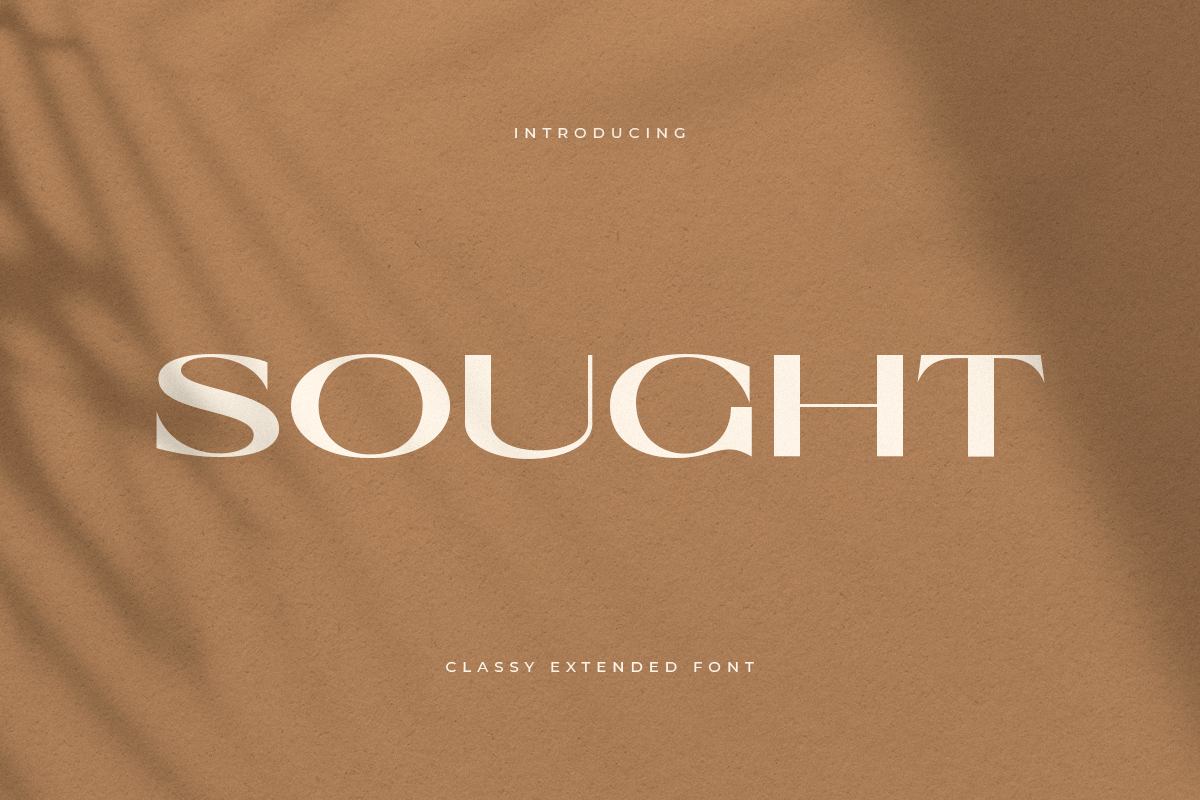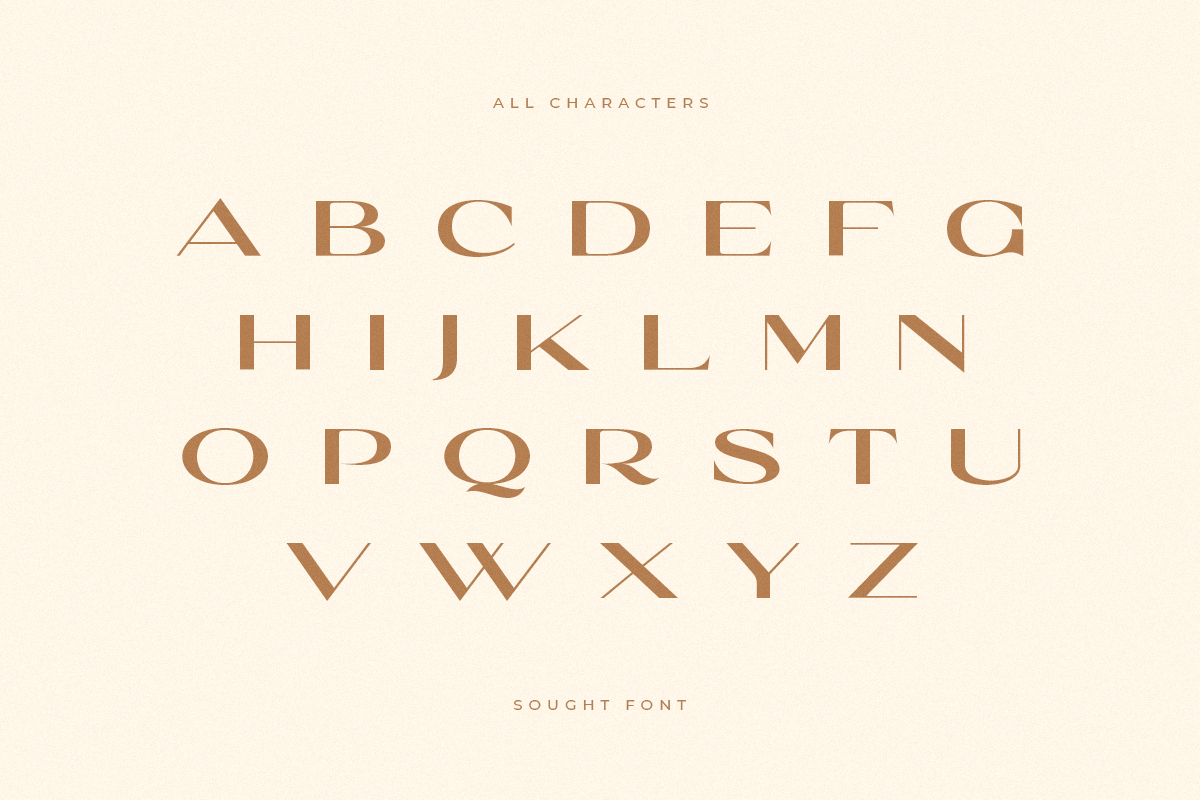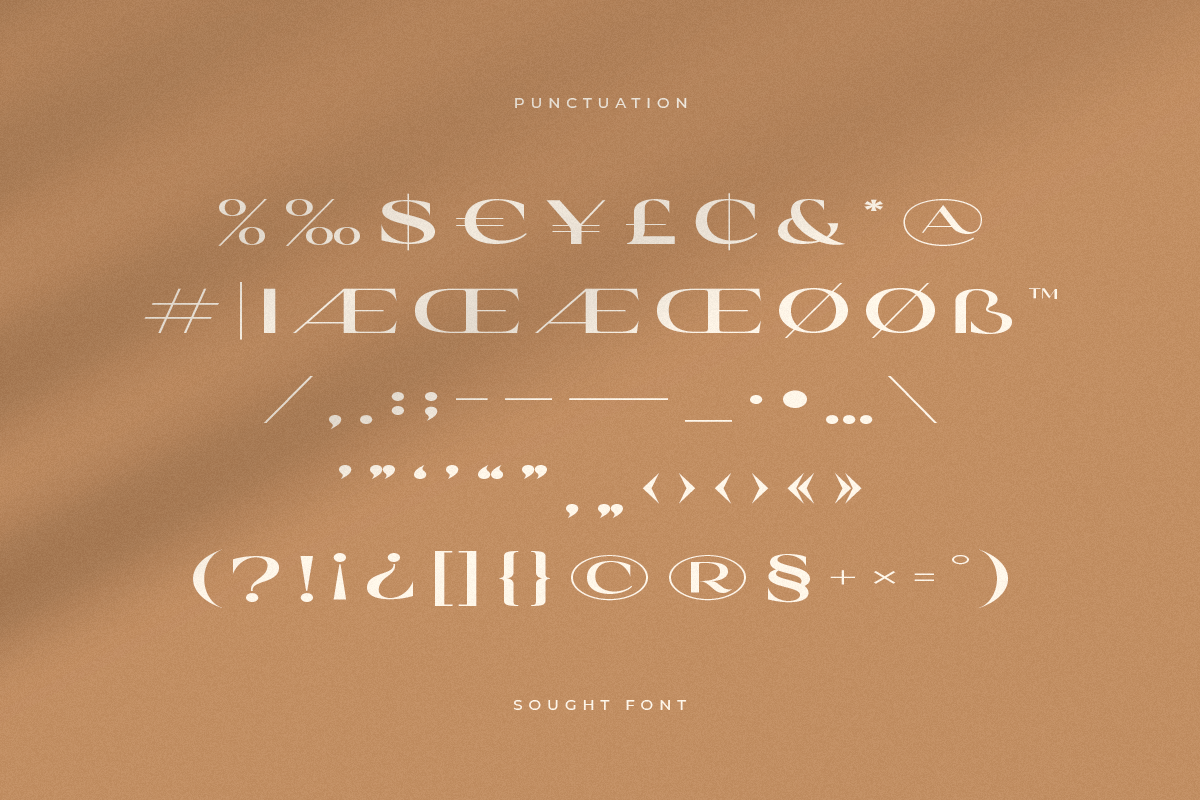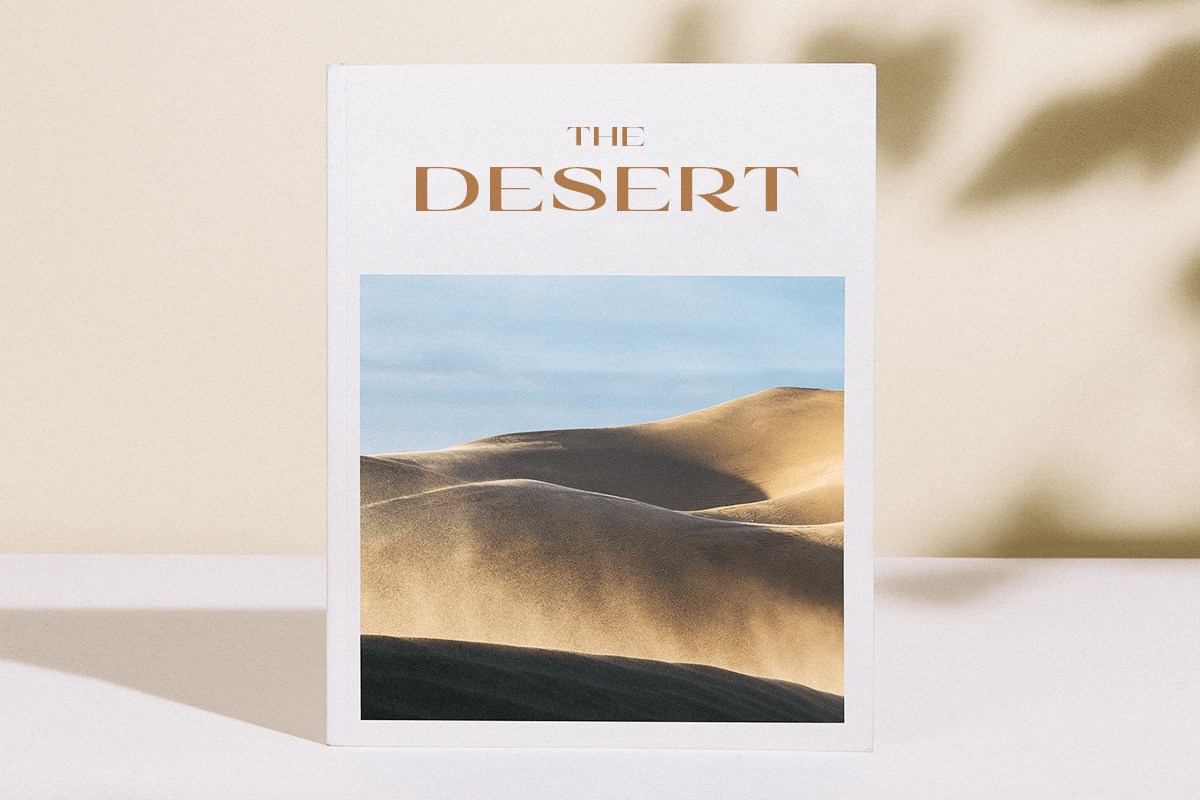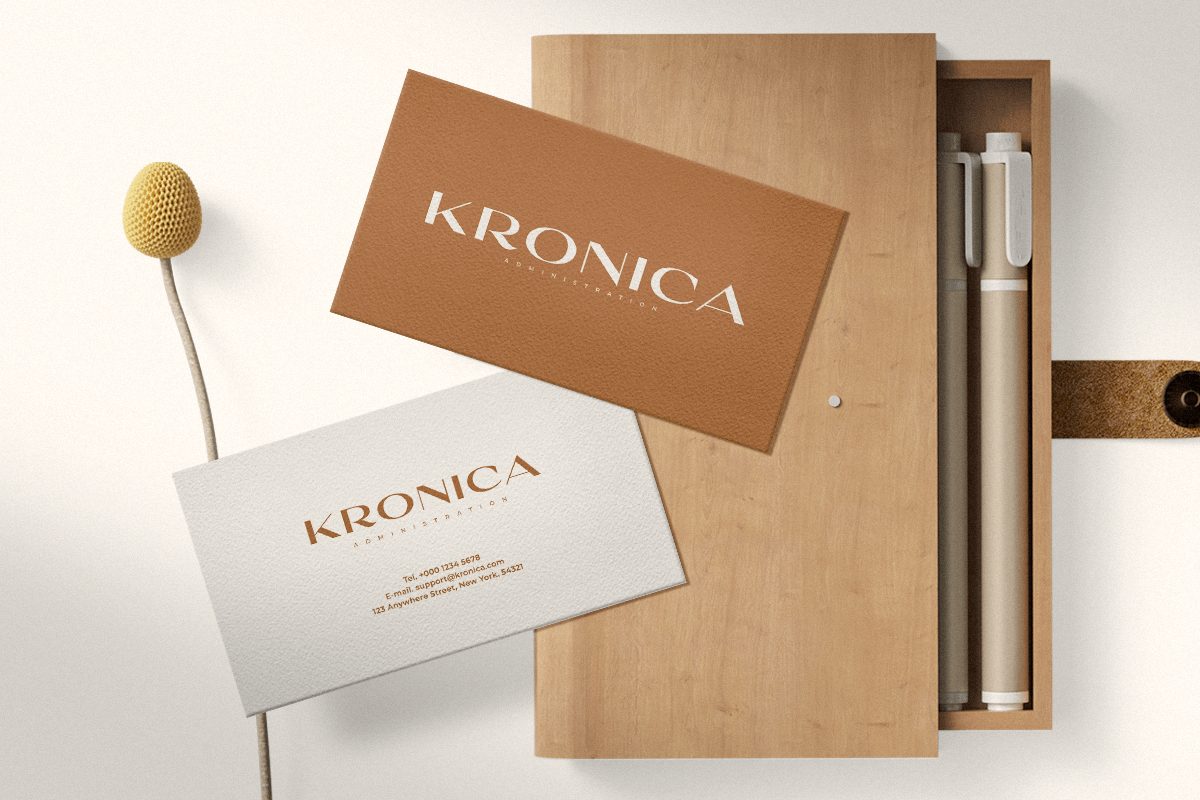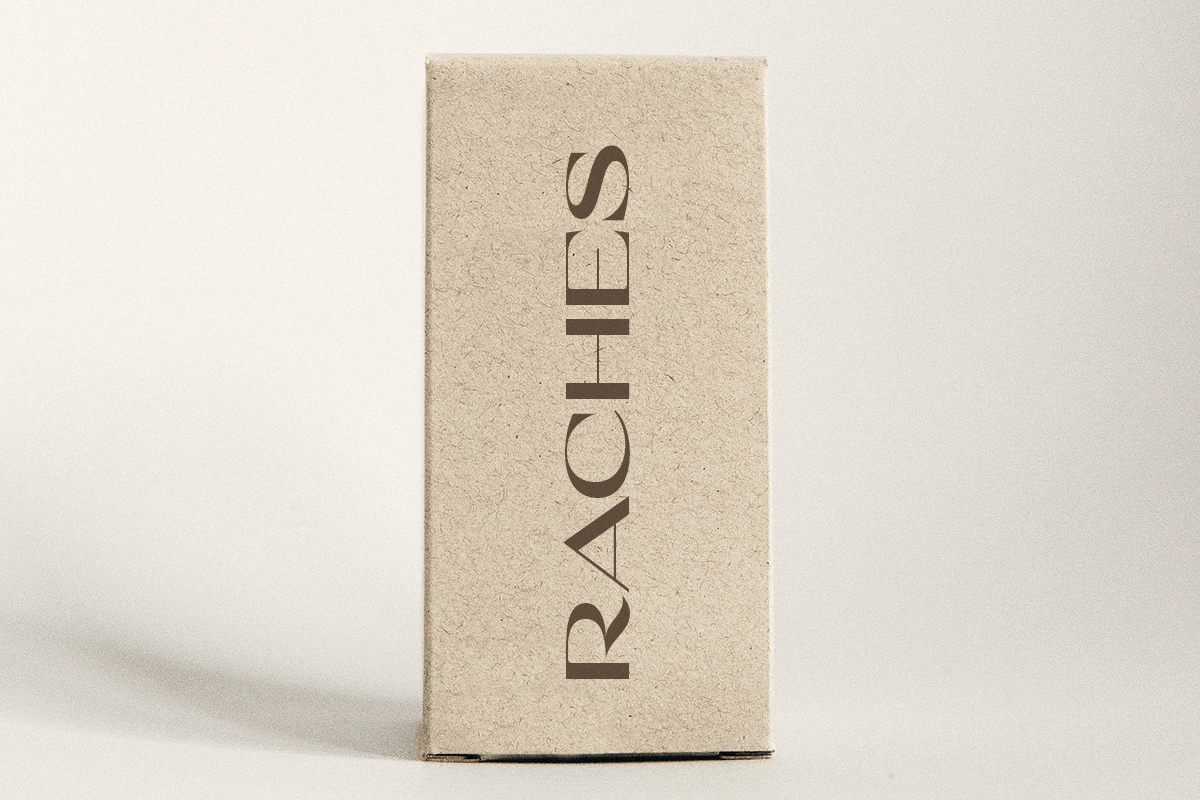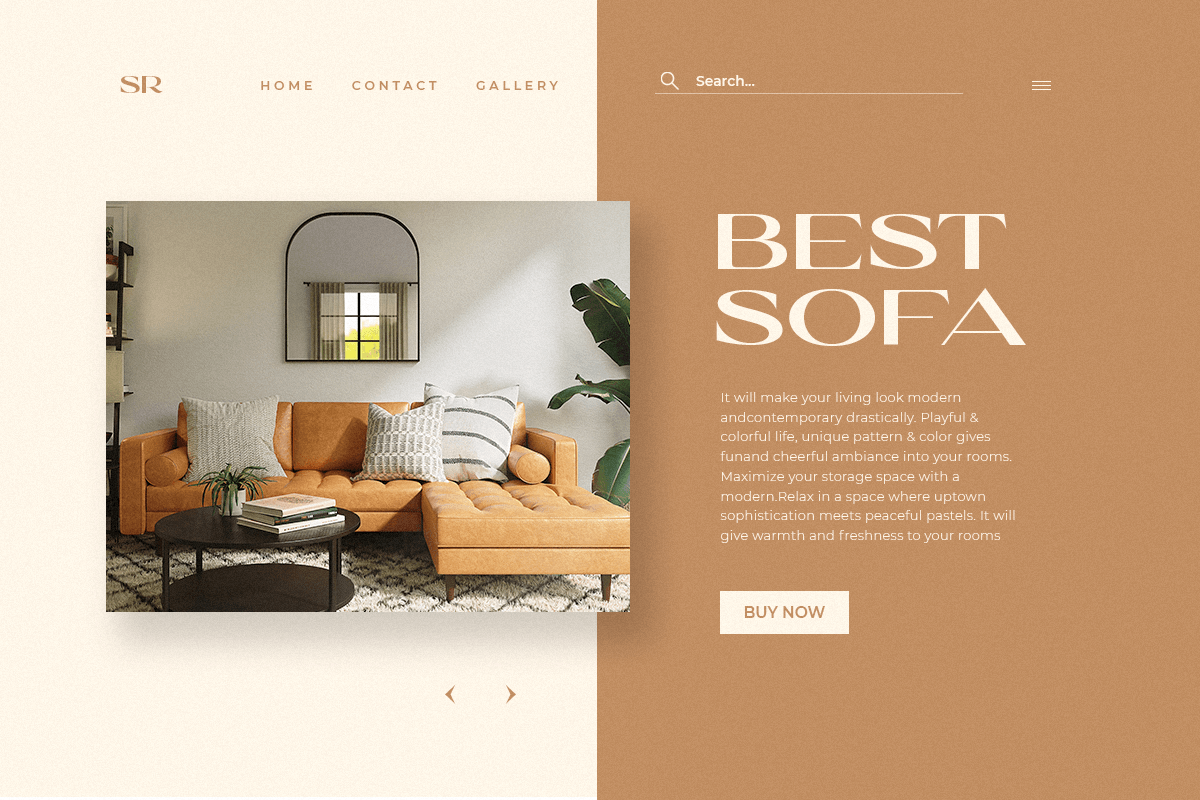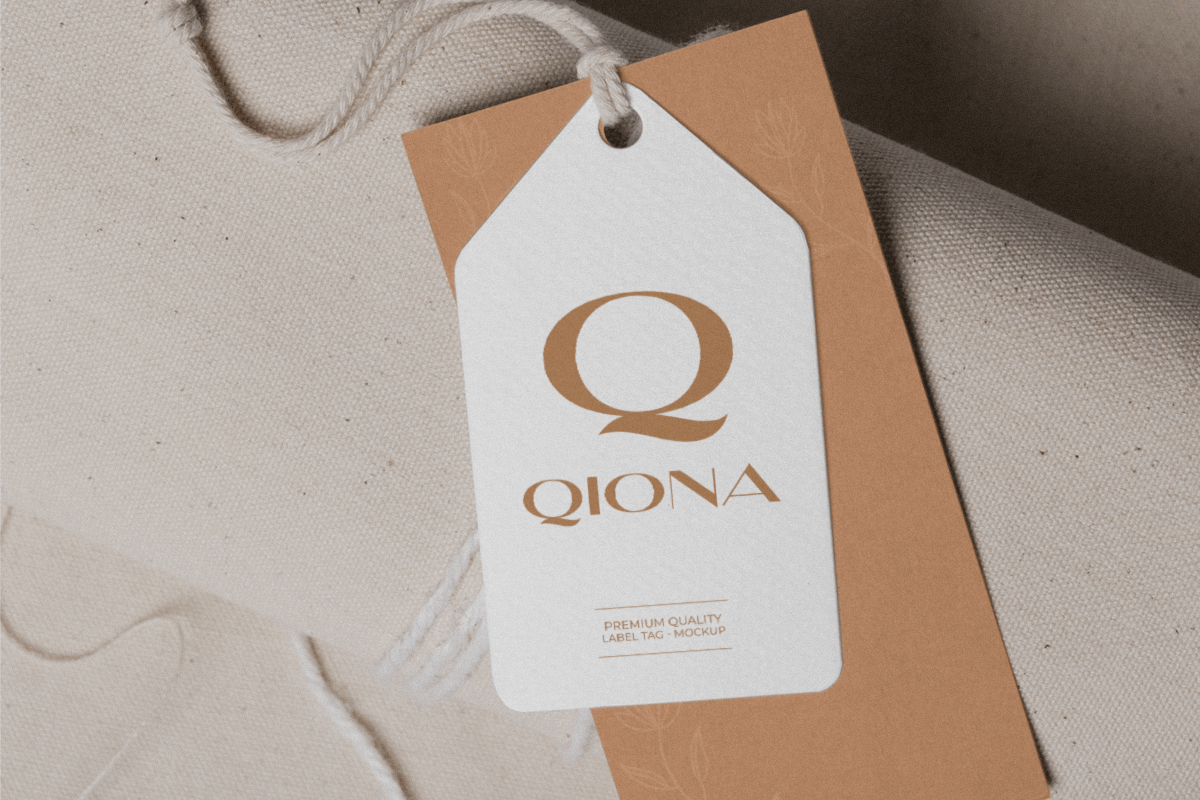
Sought
-Classy Extended Font
SOUGHT is a Modern Classy Extended Serif Font
A new Serif font that we created special for logo and branding needs, with extended shape that will add your brand value. It so nice to leverage designer or product owner that need solutions to make their design look more classy and stunning. And specially for SOUGHT font, We prepared only uppercase characters to help you create any creative things specially for logotype or wordmark.